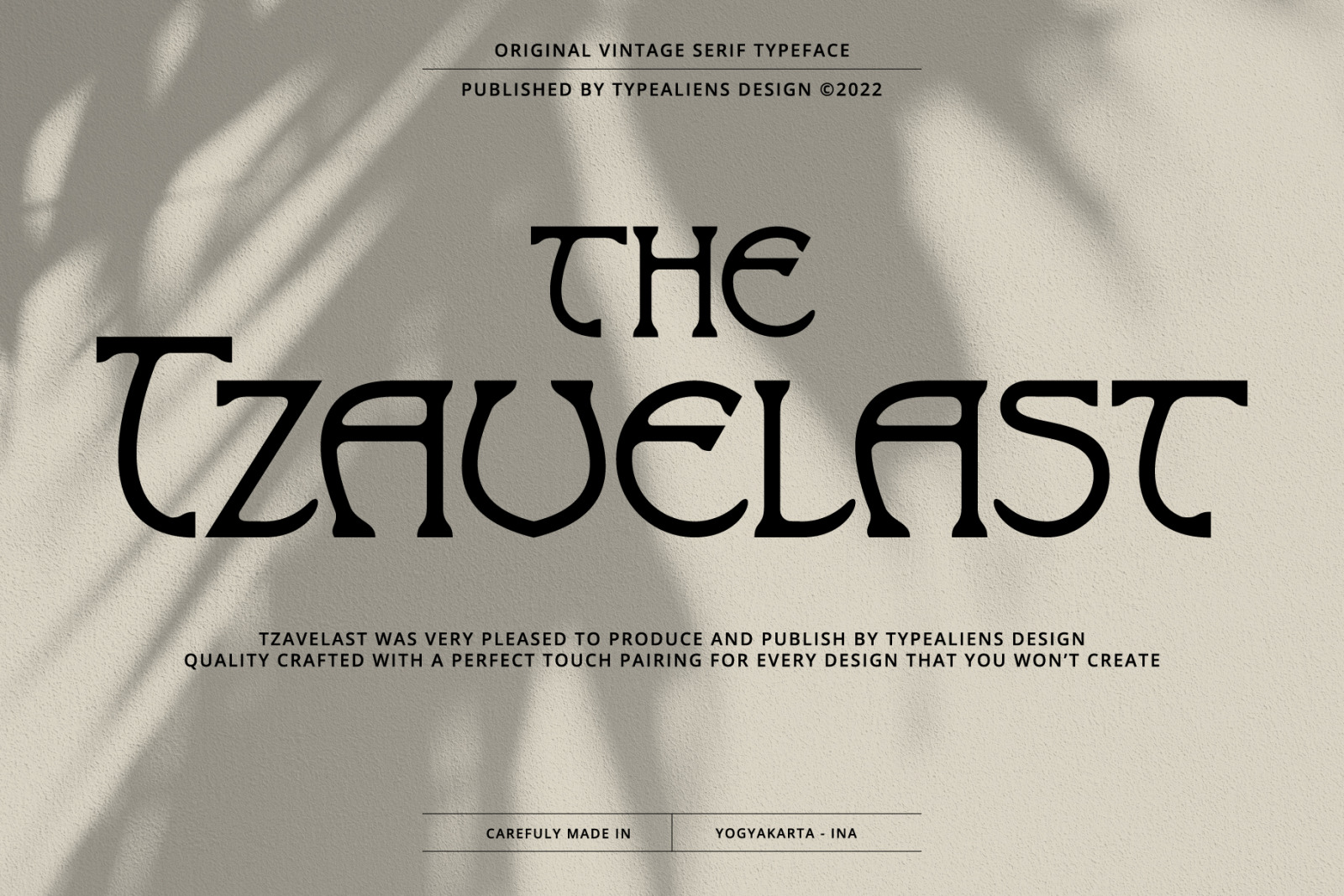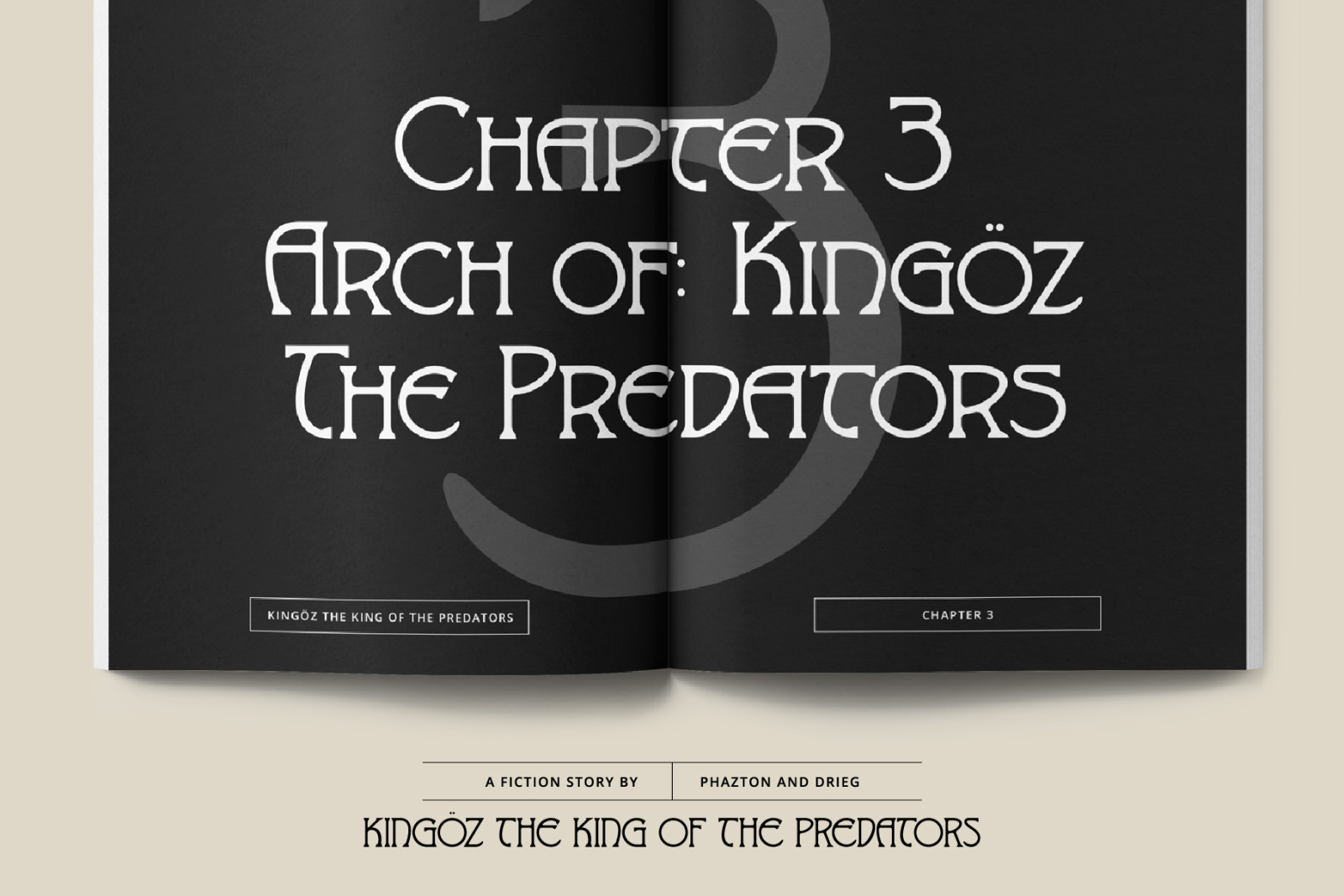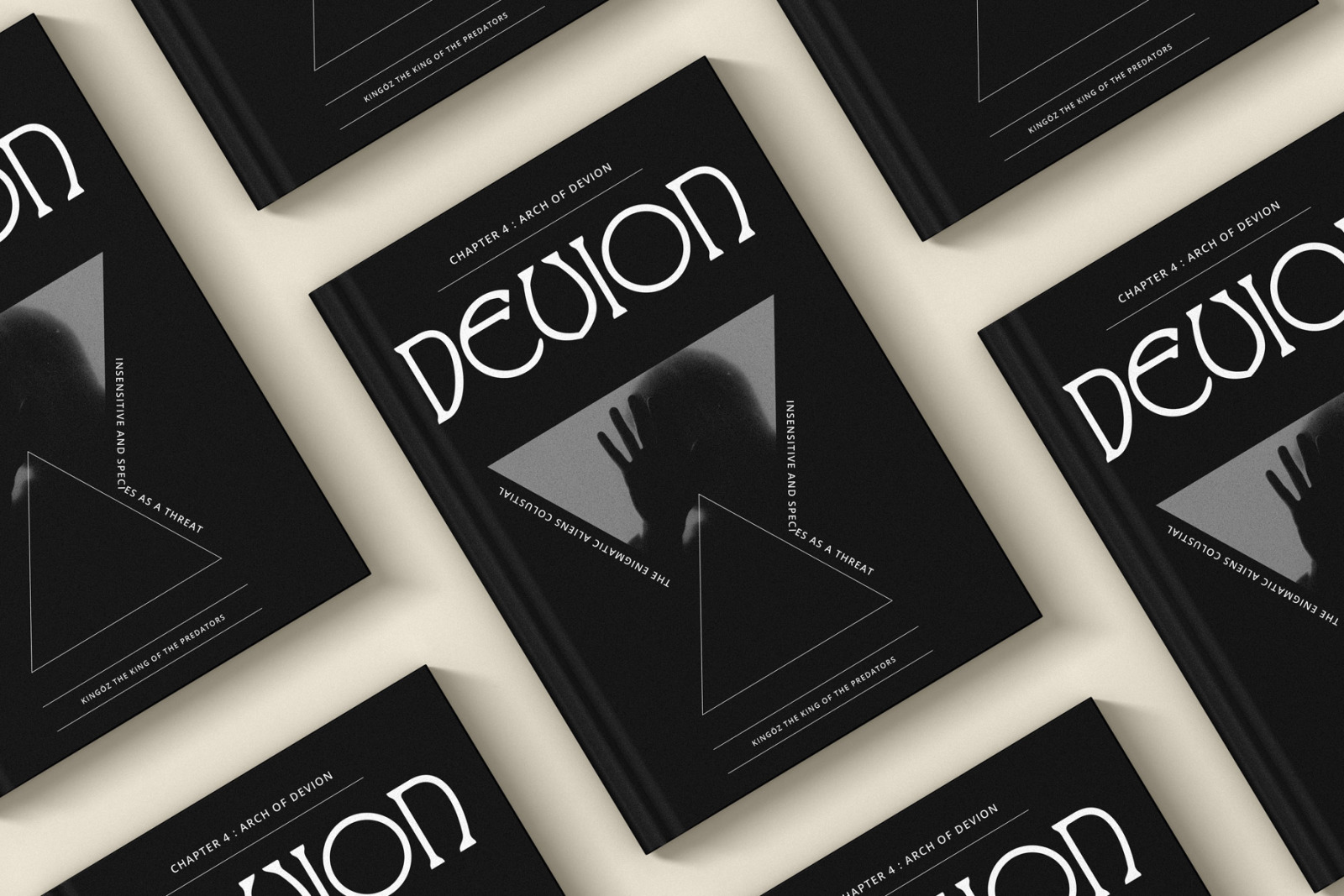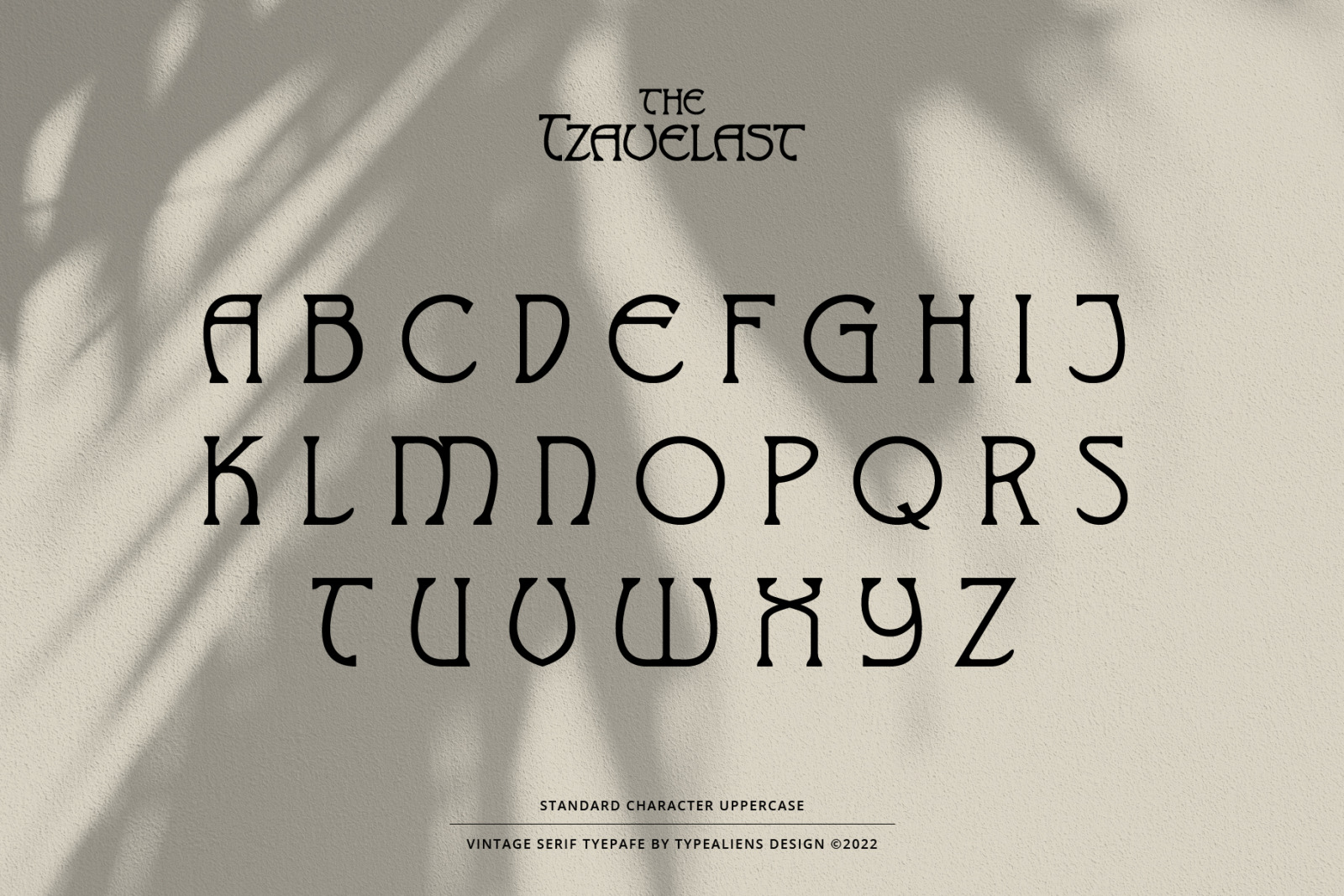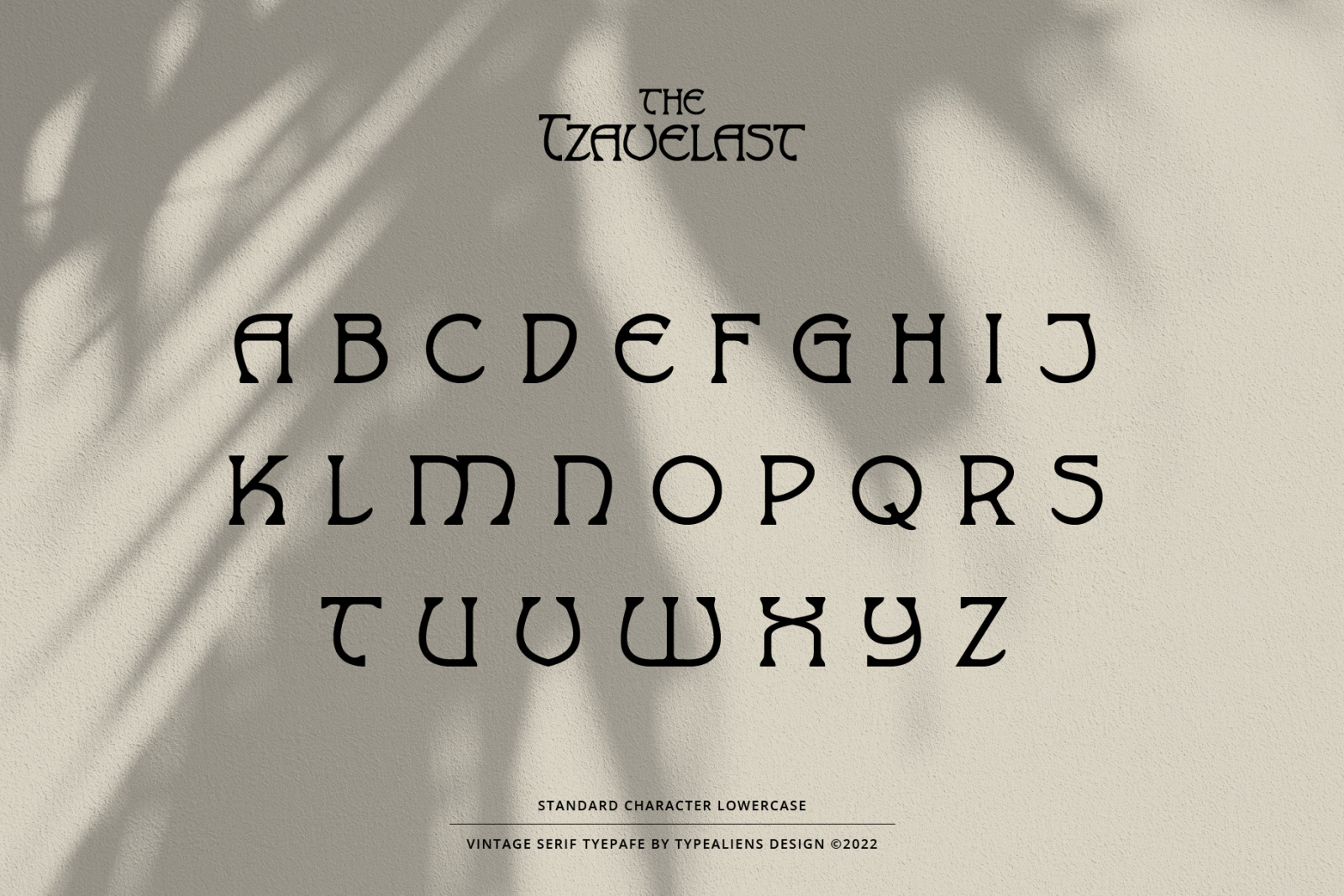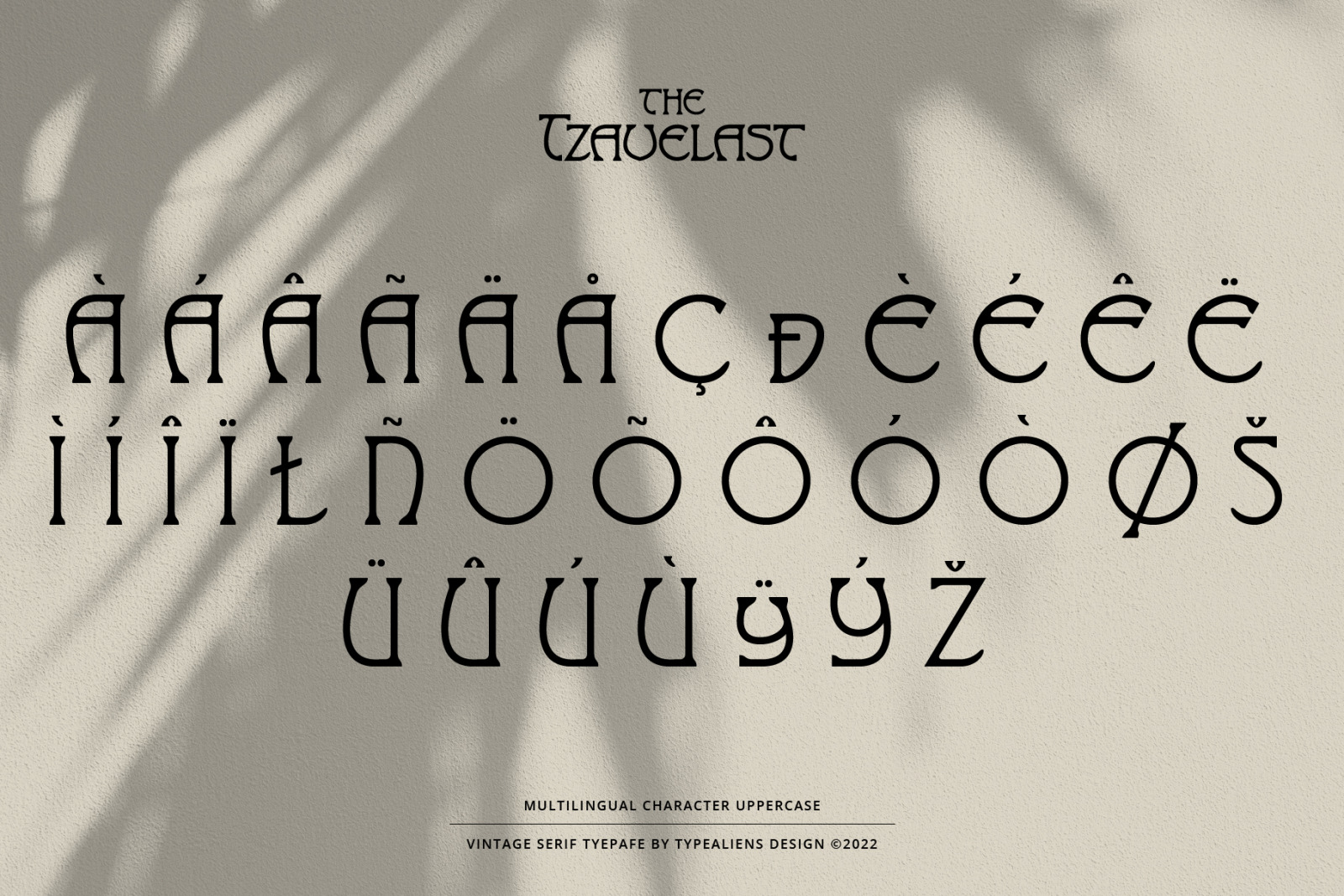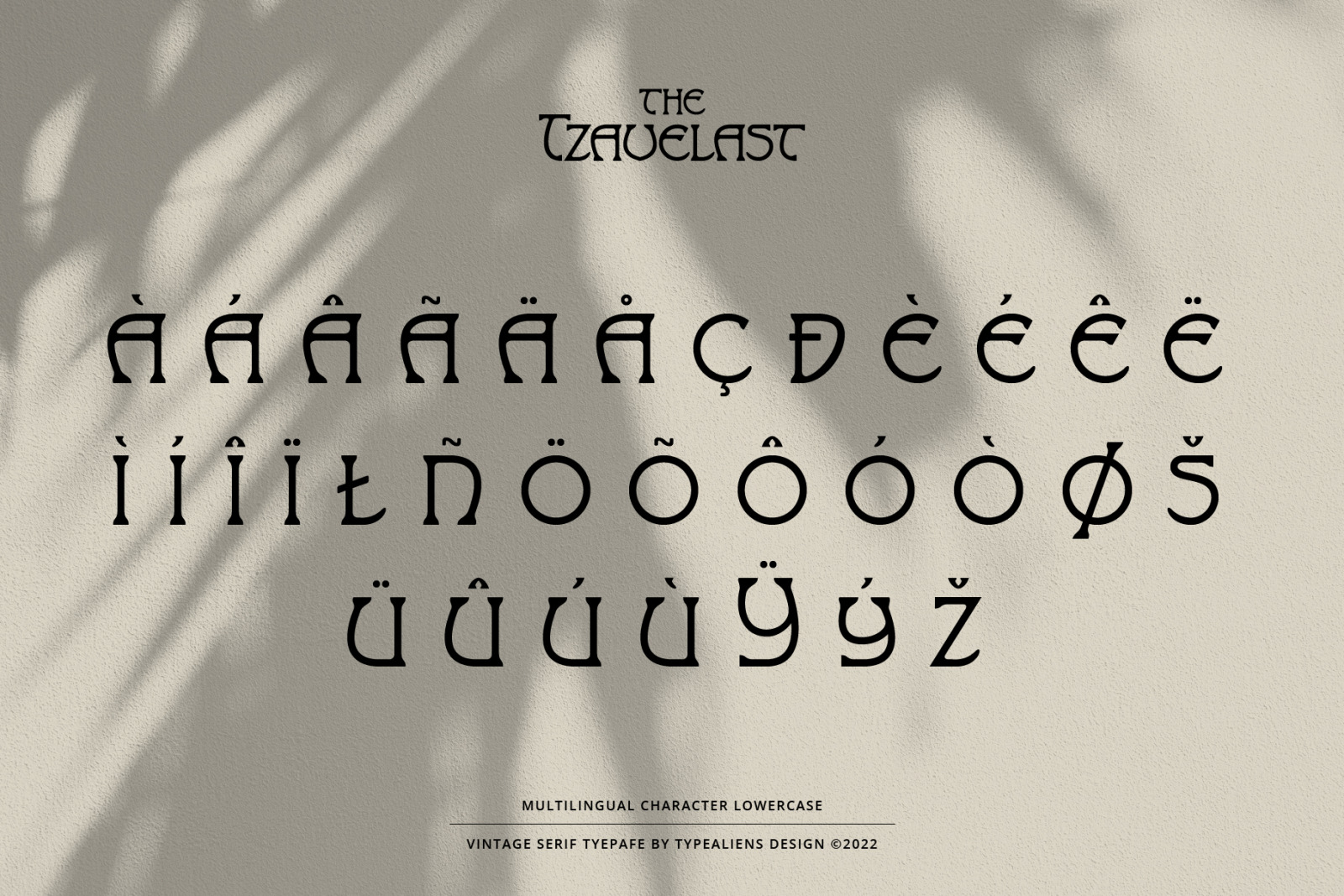
Tzavelast Font
TZAVELAST is a vintage font with a serif base. But even though it's vintage, it's also suitable for modern designs. Also suitable for headlines, social media design and branding.